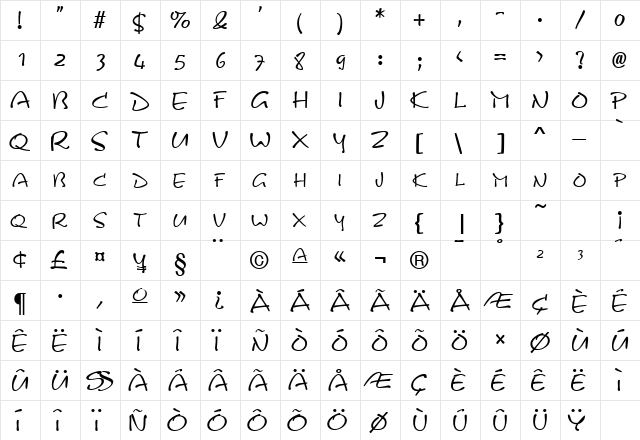
KineticSCapsSSK Regular
Design Context for KineticSCapsSSK Typeface
KineticSCapsSSK is a composed and adaptable typeface that performs quietly and consistently across a wide range of design contexts.